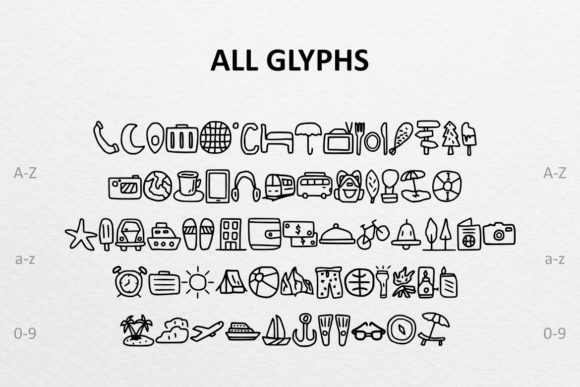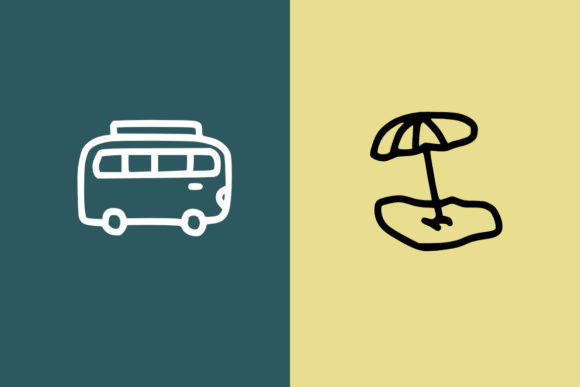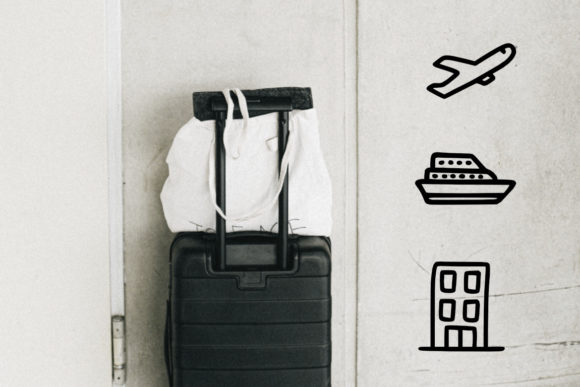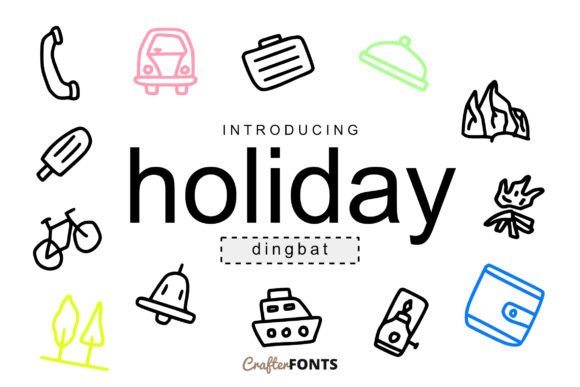
Introduction to Holiday Doodle Font
Holiday Doodle is a cool and useful dingbats font.
It is suitable for many projects, logos, ornaments and so on It contain 62 symbols which can nicely be used on various creations related to leisure, hobbies and vacations.
Holiday Doodle Font offers exceptional quality and versatility, making it a valuable addition to your design toolkit. Whether you’re creating for personal projects or commercial use, Holiday Doodle Font delivers professional results.